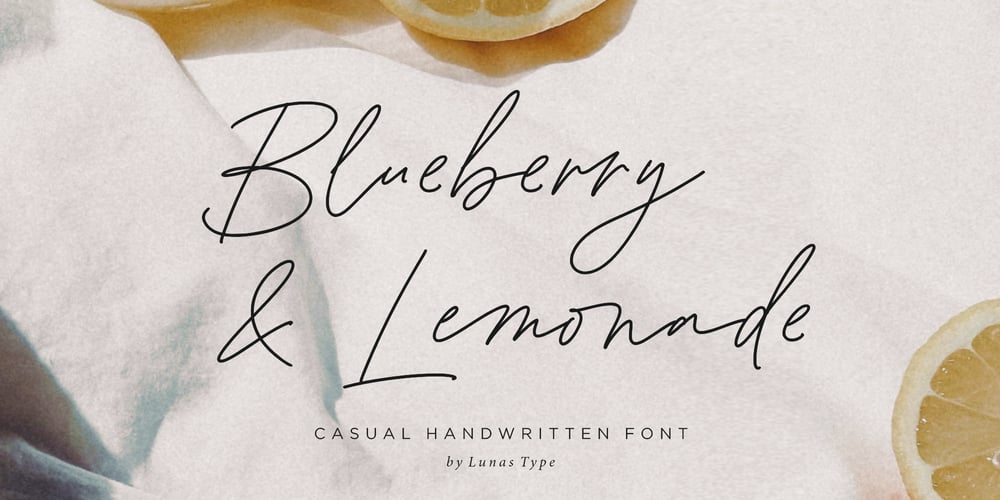
Blueberry and Lemonade Font Family was designed by Annas Alam Yahya and published by Lunas Type. Blueberry and Lemonade contains 1 styles and family package options. Introducing, Blueberry & Lemonade!Blueberry & Lemonade is a casual handwritten font. For those of you who are needing a touch of chic and modernity for your designs, this font was created for you!Blueberry & Lemonade is perfect for many design needs such as merch, T-shirts, signature logo, wedding, book covers, social media posts, websites, events, and many more.